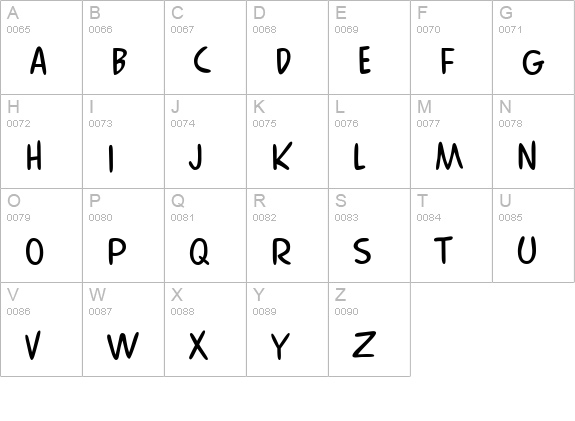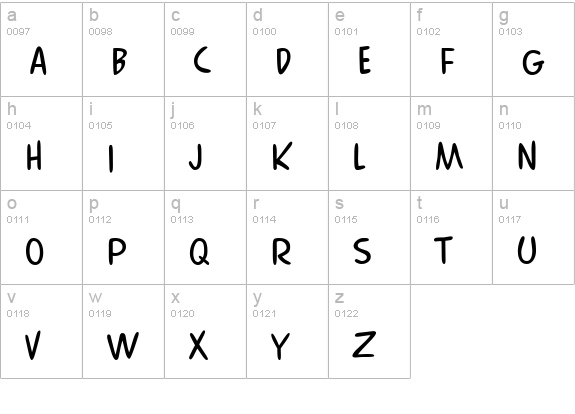
Comix Regular Caps Font Details
Comix Regular Caps is the standard, neutral variant in the Comix typeface family \xE2\x80\x94 well suited to general body text, paragraphs, and standard typographic work.
Comix Regular Caps font is a bold and eye-catching typeface that is perfect for adding a touch of fun and excitement to your designs. With its clean lines and distinct style, this font is sure to make a statement. The uppercase letters are designed with a comic book-inspired flair, making them ideal for titles, headlines, and other attention-grabbing text. One of the best things about Comix Regular Caps font is that it is completely free to download. You can easily access this font at FontsMarket.com and start using it in your projects right away. Whether you're working on a poster, flyer, logo, or any other design, Comix Regular Caps font will help you stand out and make a lasting impression. Don't miss out on this fantastic and versatile font - download it for free today!